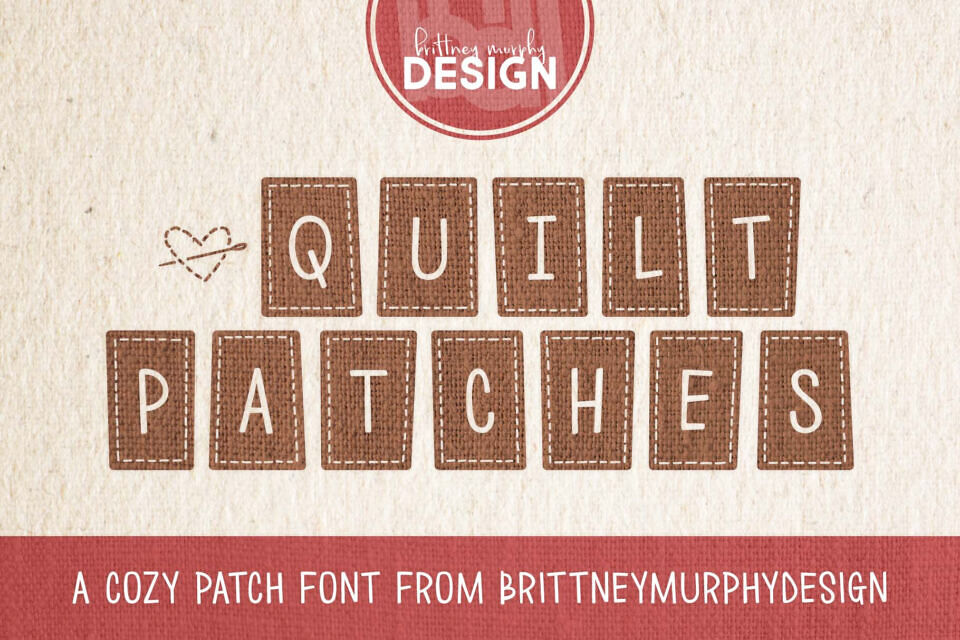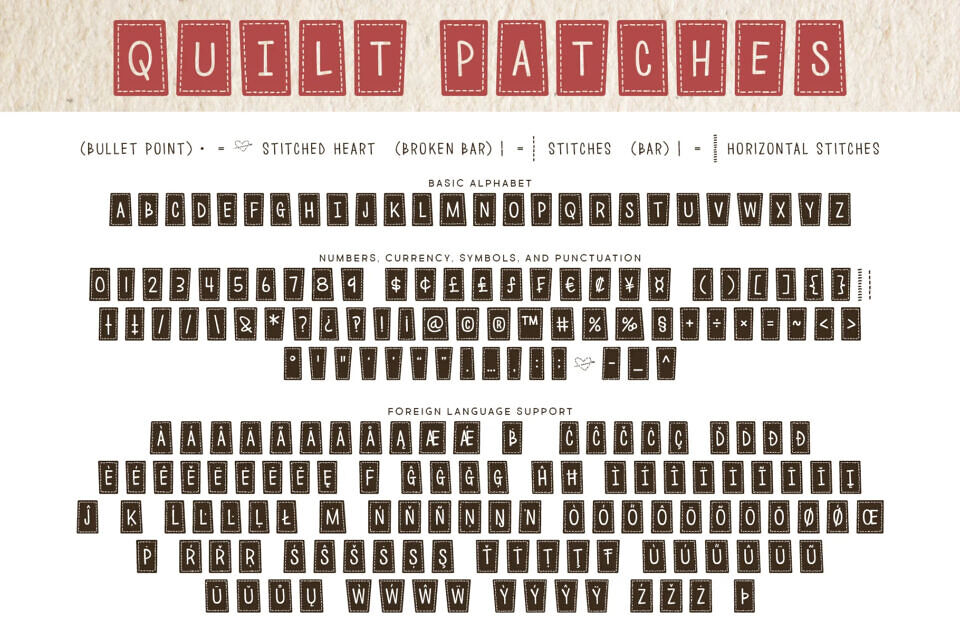
The Quilt Patches Font is a cozy, farmhouse, patch font created by Brittney Murphy Design. This typeface supports most Latin-based languages and is a Unicase font, where all your letters will match the same height. Perfect for adding a DIY touch, this font is great for creating labels, signs, and cards that exude a crafty feel, making them instantly cool and unique.